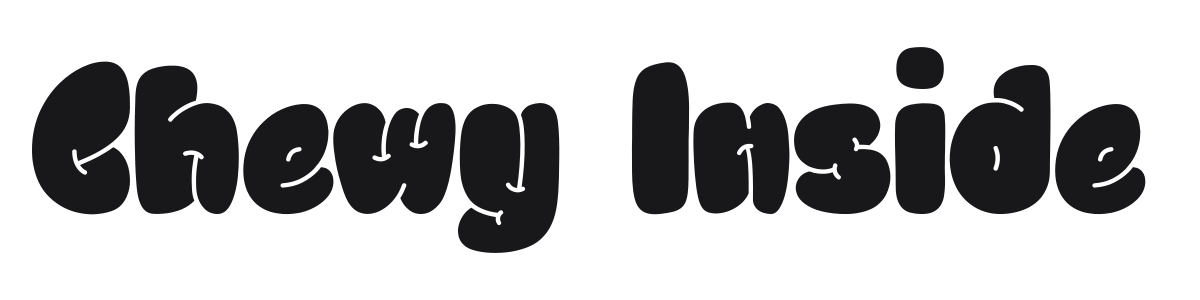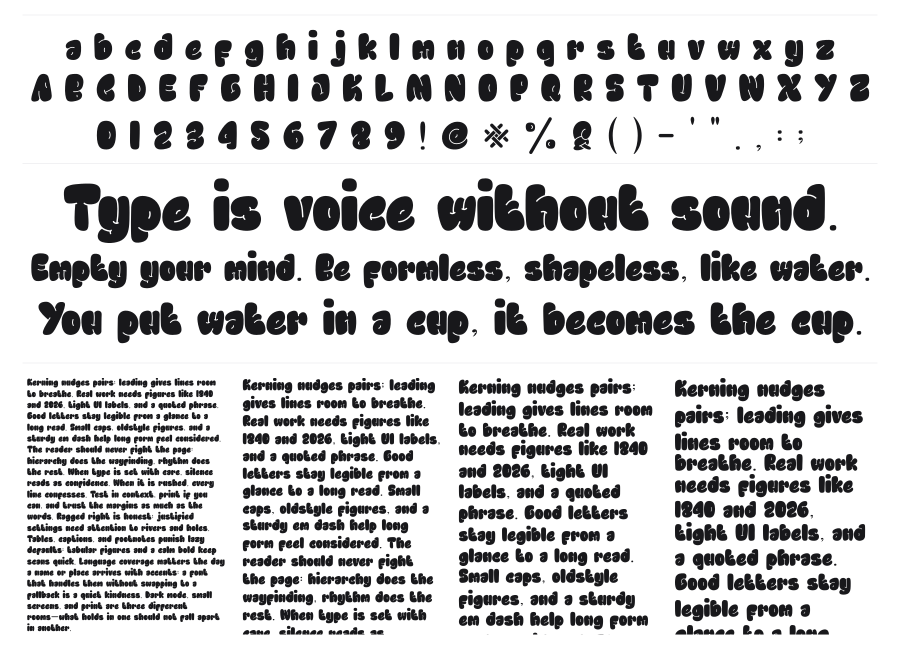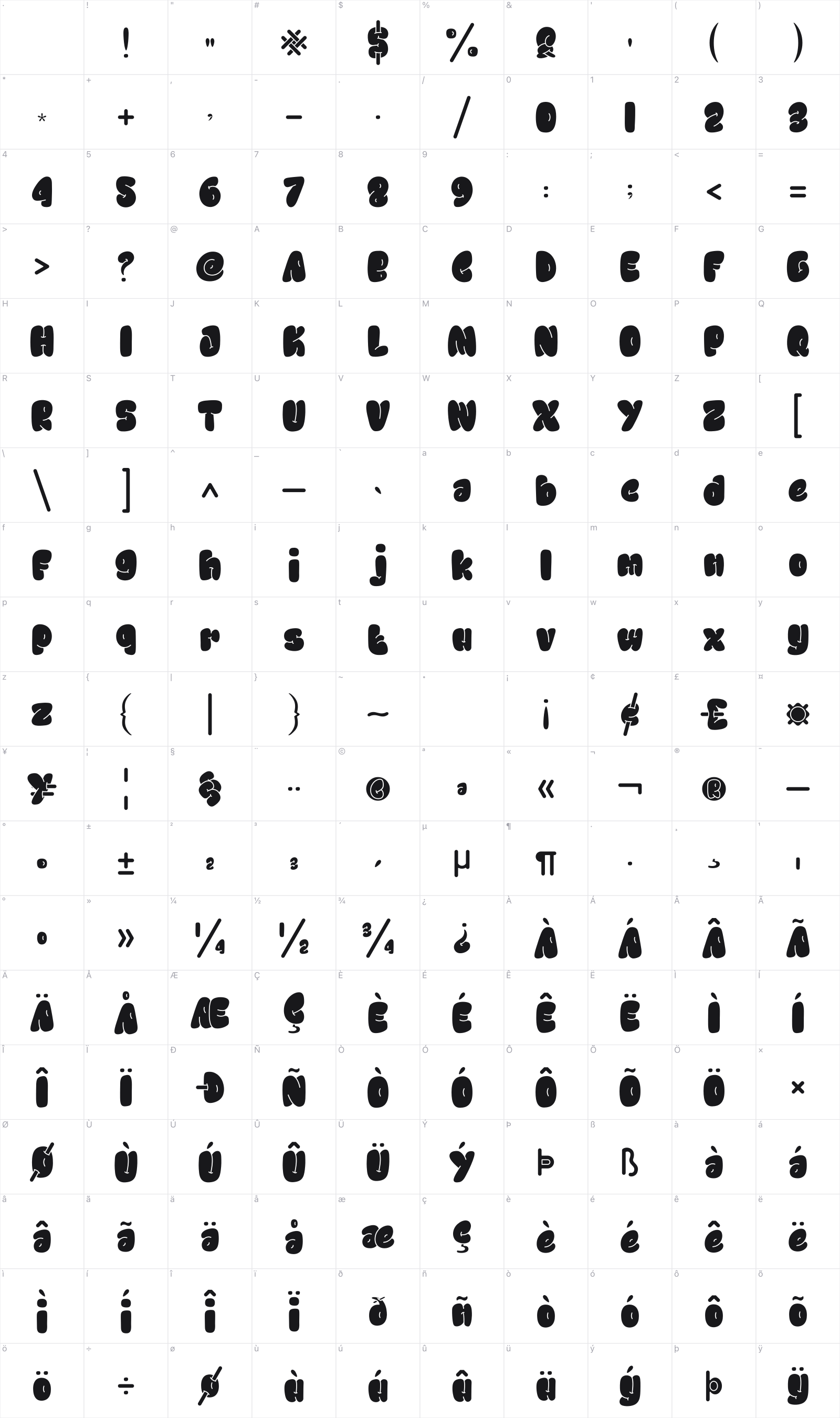
Chewy Inside
Chewy Inside is an ultra-bold bubble display font with heavily inflated strokes and rounded terminals that give every character a soft, almost squeezable quality. The deep interior notches where strokes meet add a tactile retro detail rooted in 1970s groovy lettering. It brings instant energy to posters, packaging, and anywhere a design needs personality.